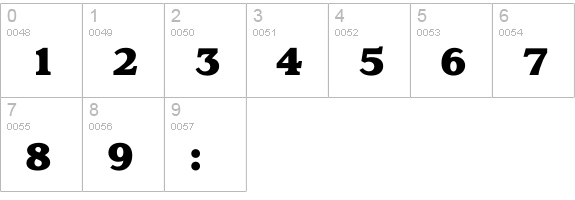
ClaremontExBoldTab Font Details
ClaremontExBoldTab is a beautifully designed and bold font that exudes elegance and sophistication. With its striking presence and clean lines, this font is perfect for making a statement in your designs. Whether you are creating a logo, heading, or any other project that requires a bold touch, ClaremontExBoldTab is sure to captivate your audience. The best part? ClaremontExBoldTab is available for free download at FontsMarket.com. This means that you can effortlessly enhance your designs with this exquisite font without any cost. Don't miss out on the opportunity to elevate your projects with ClaremontExBoldTab - download it now and let your creativity shine!